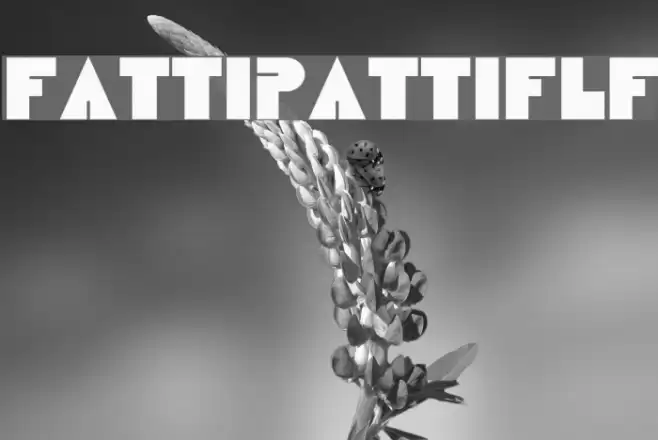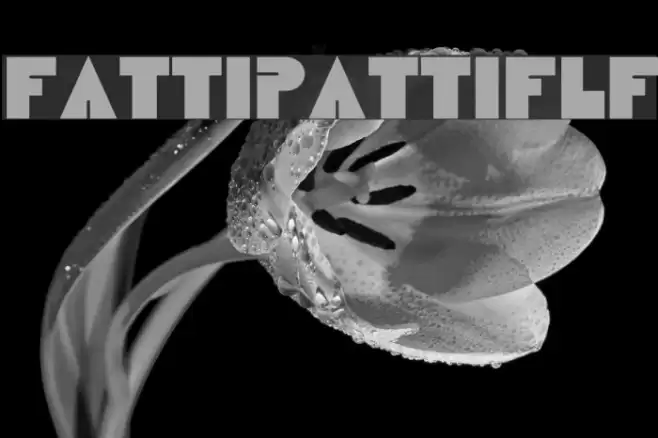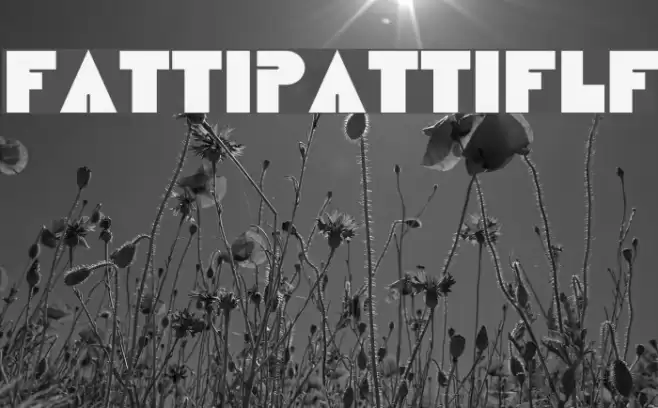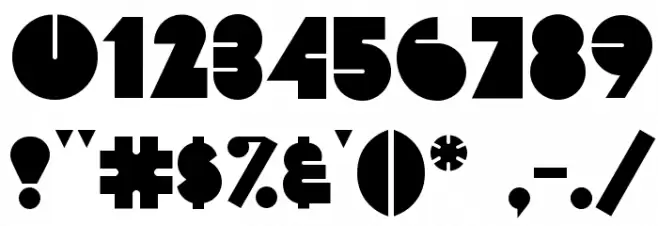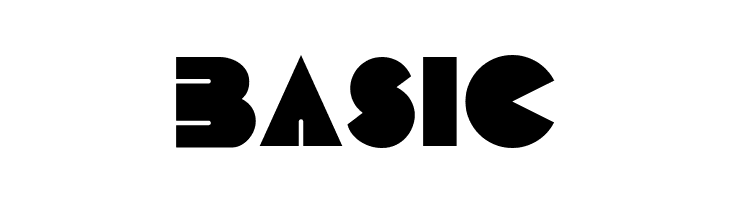
FattiPattiFLF Font
FattiPattiFLF Description
This font features a bold and geometric design, characterized by its strong, angular shapes and high contrast between thick and thin strokes. The uppercase letters are particularly striking, with a blocky appearance that commands attention. The lowercase letters maintain the same boldness, offering a cohesive look across different text cases. Numbers and special characters are designed with the same geometric precision, making them stand out prominently. The font's style is distinctly modern, with a touch of retro-futuristic flair, making it ideal for projects that require a bold visual impact.
A bold, geometric font with high contrast and a modern, retro-futuristic style from Uncategorized fonts.
- Proposed Projects: Ideal for branding, poster design, headlines, and any project that requires a strong visual statement.
- Overall Style: Modern, Retro-Futuristic